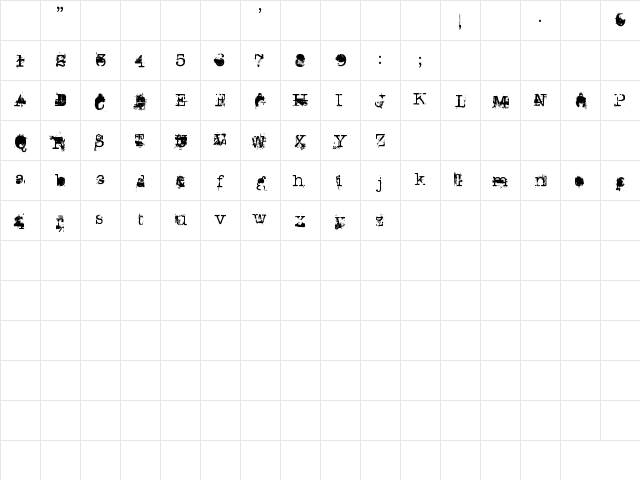
Complete don giovonni Regular glyph index. Displaying only characters natively supported by don giovonni Regular font.
don giovonni is a composed and adaptable typeface that performs quietly and consistently across a wide range of design contexts.